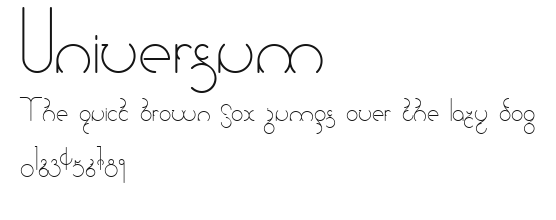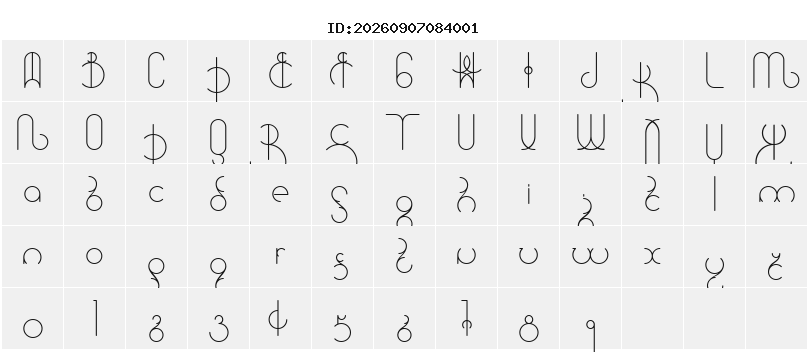
Universum Preview
• Font Name: Universum
• Full Font Name: Universum
• PostScript Name: Universum
• Designer: JAF 34
• Manufacturer: JAF 34
About Universum.ttf
Universum.ttf is a modern, elegant sans-serif font designed for ultimate readability and visual harmony. Perfect for branding, headlines, web design, and print materials.